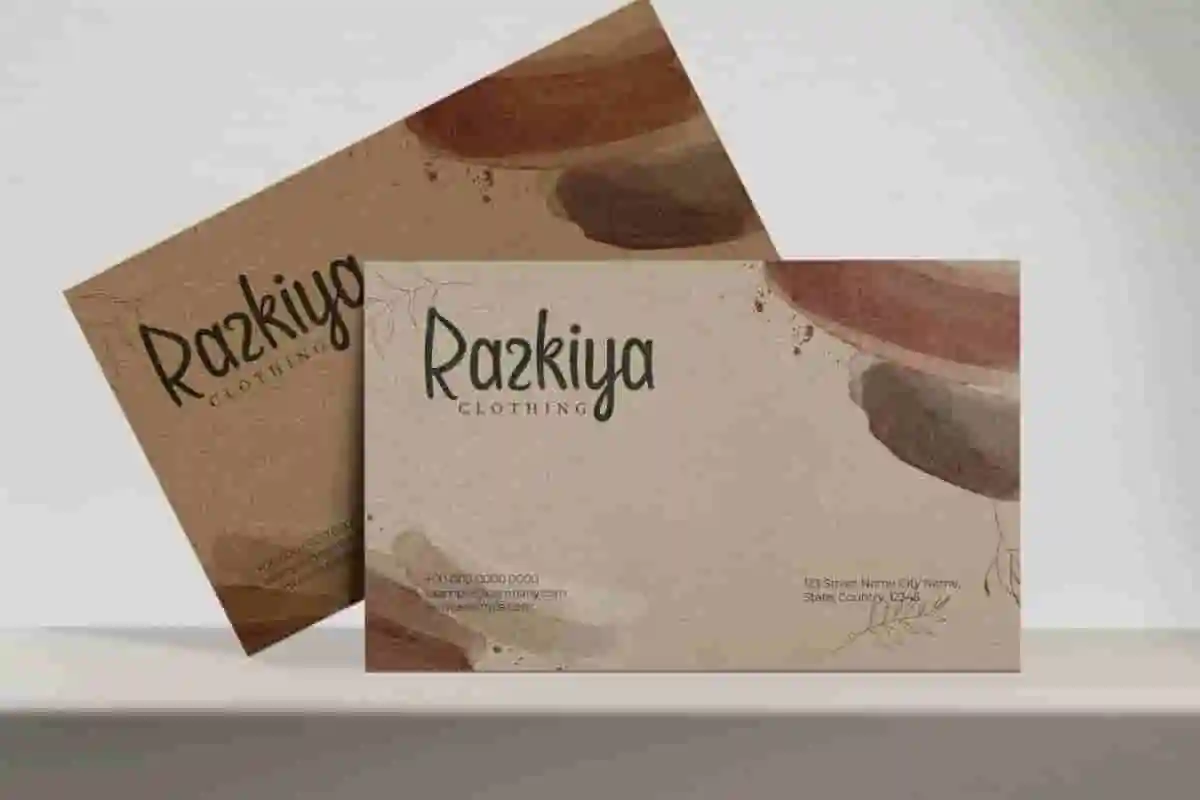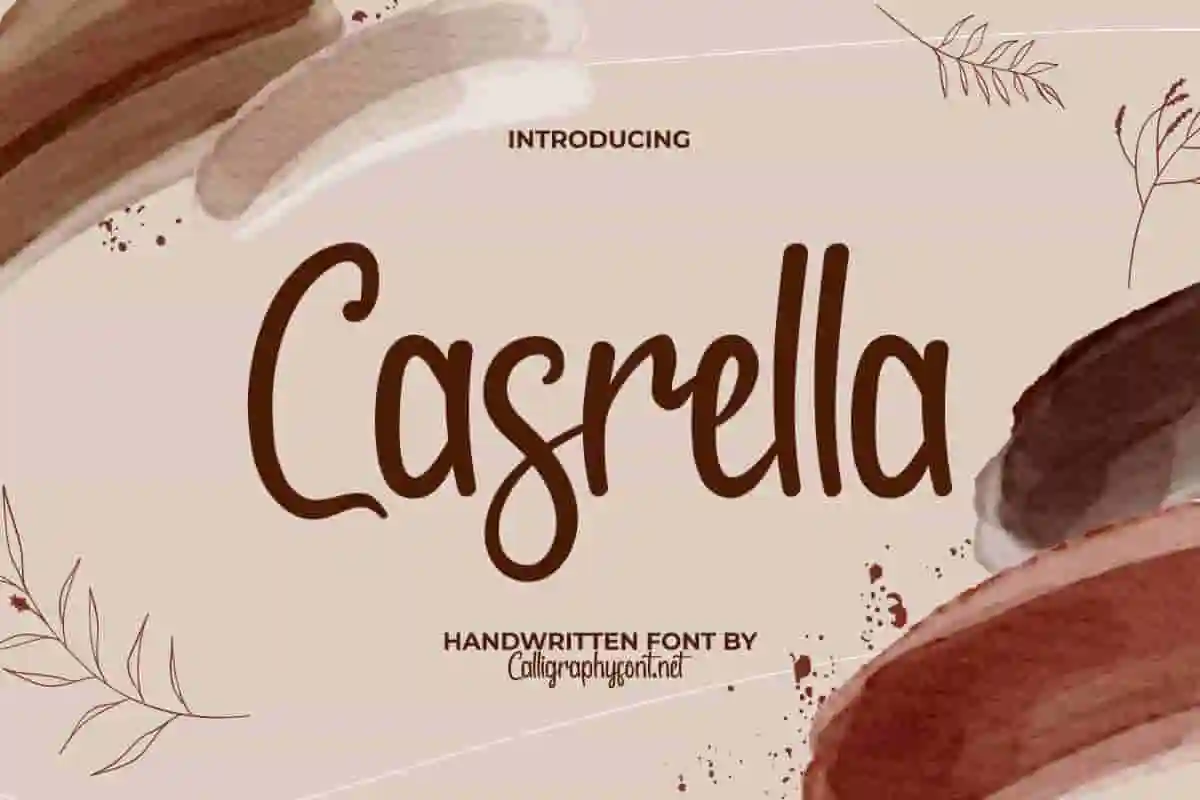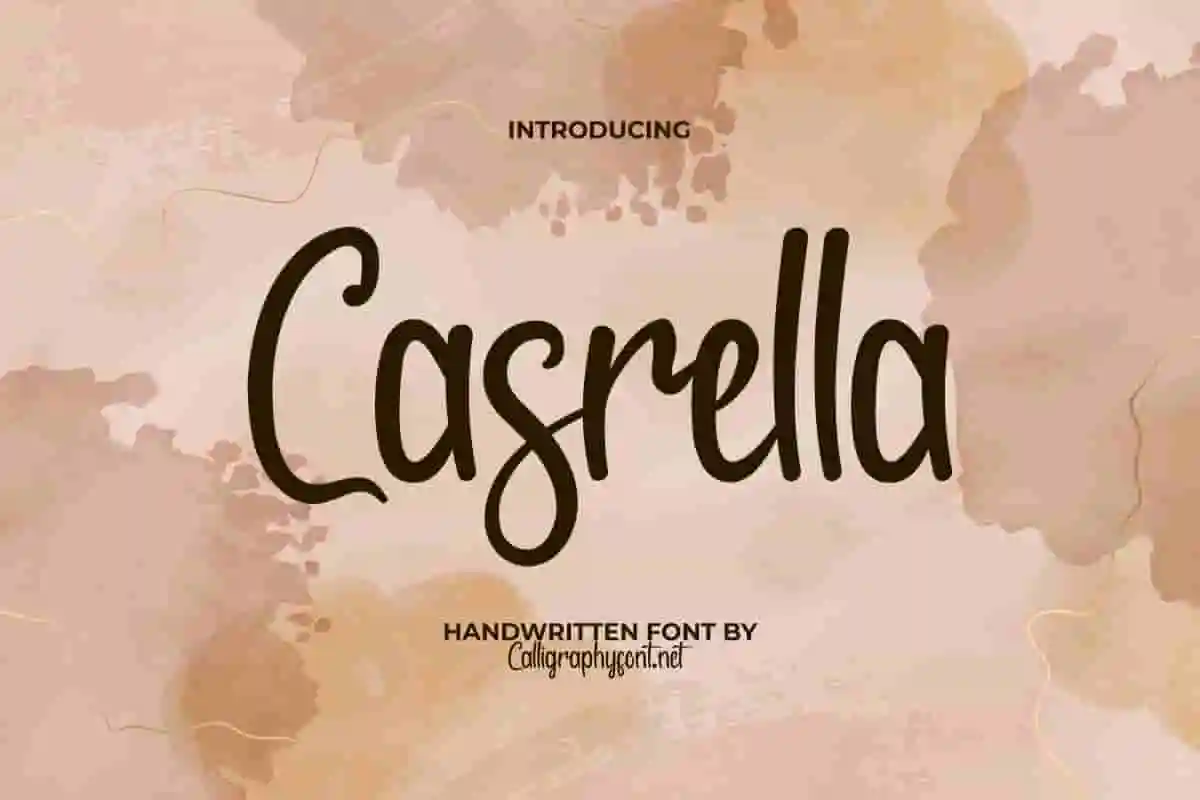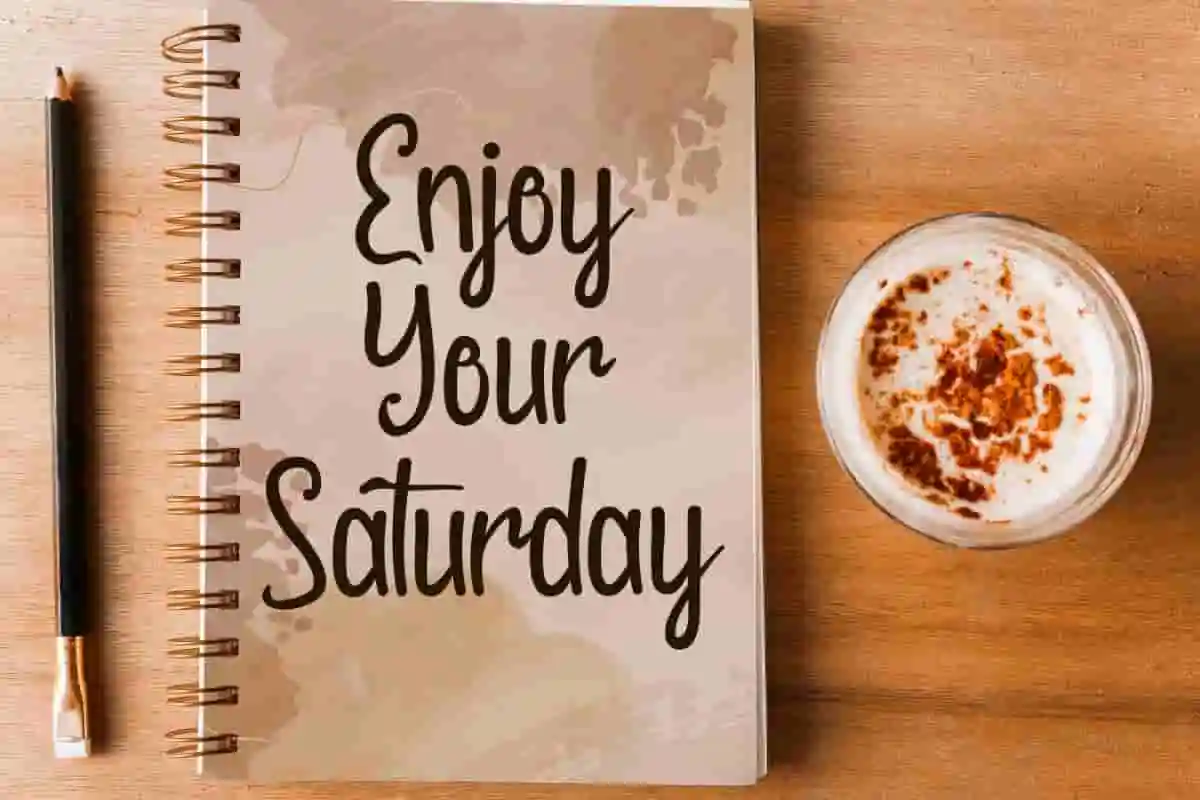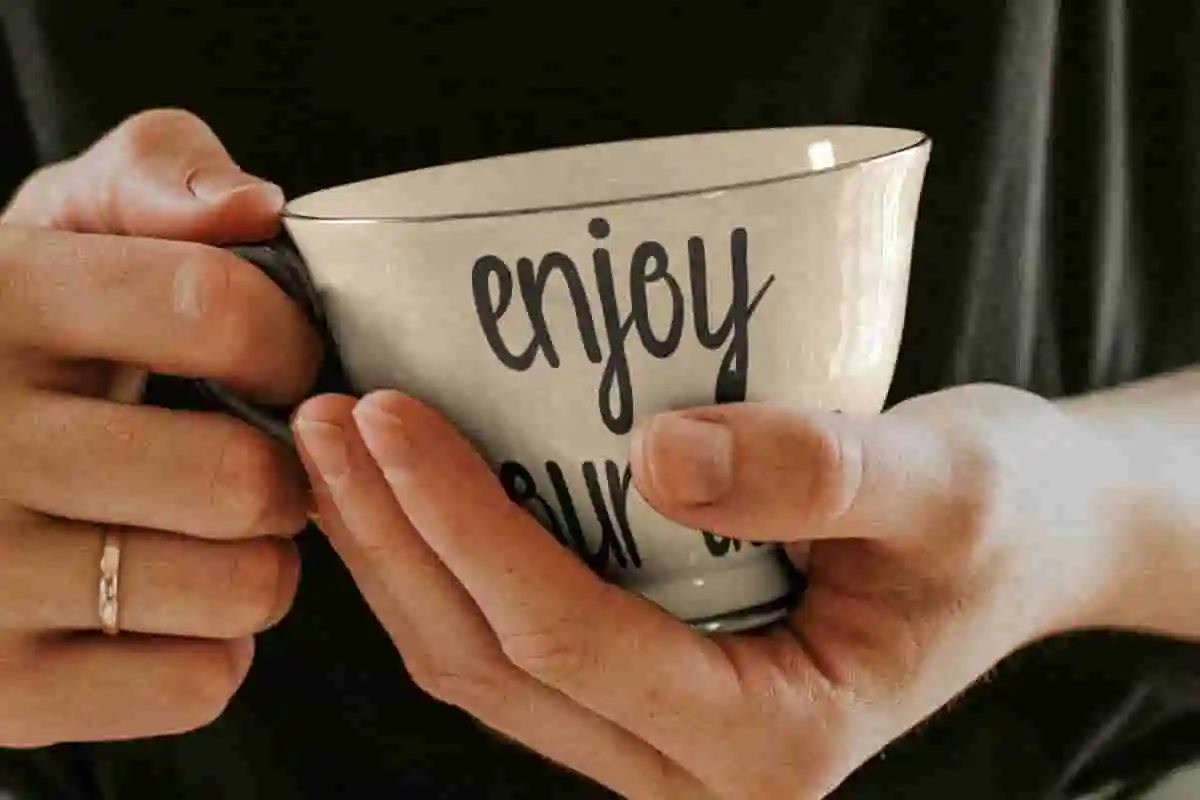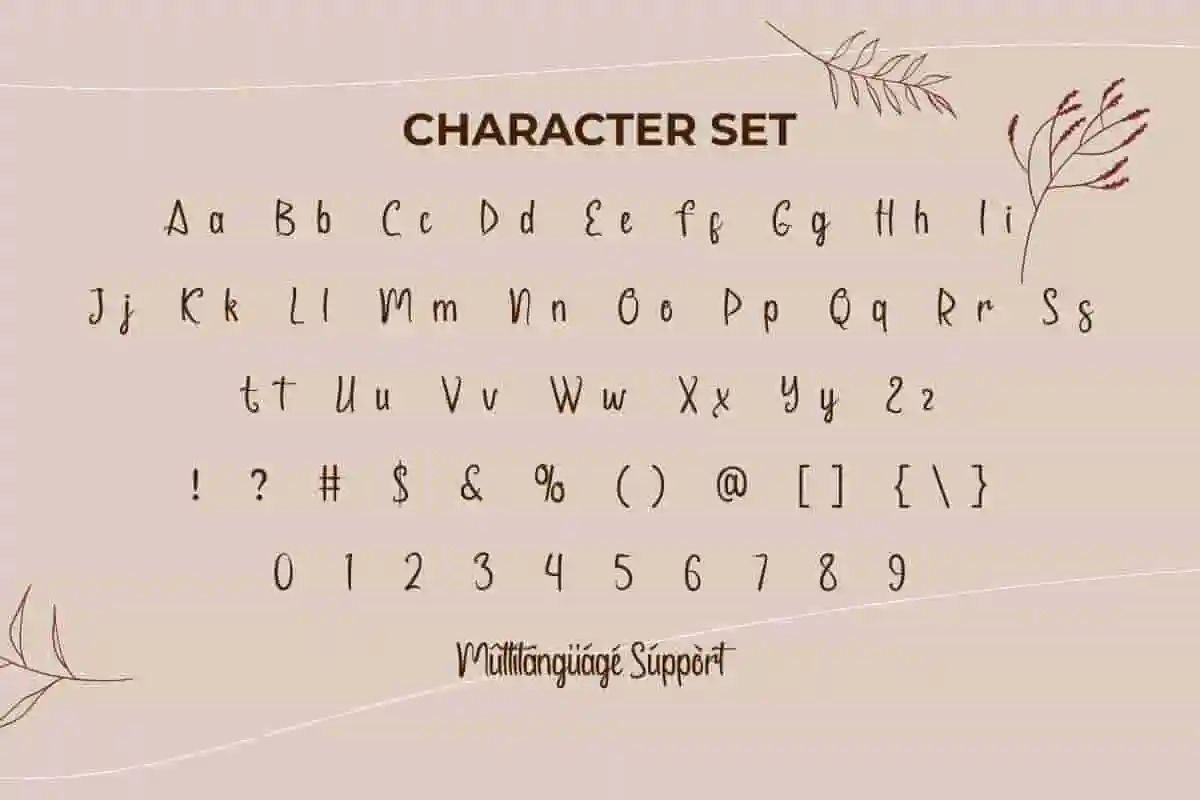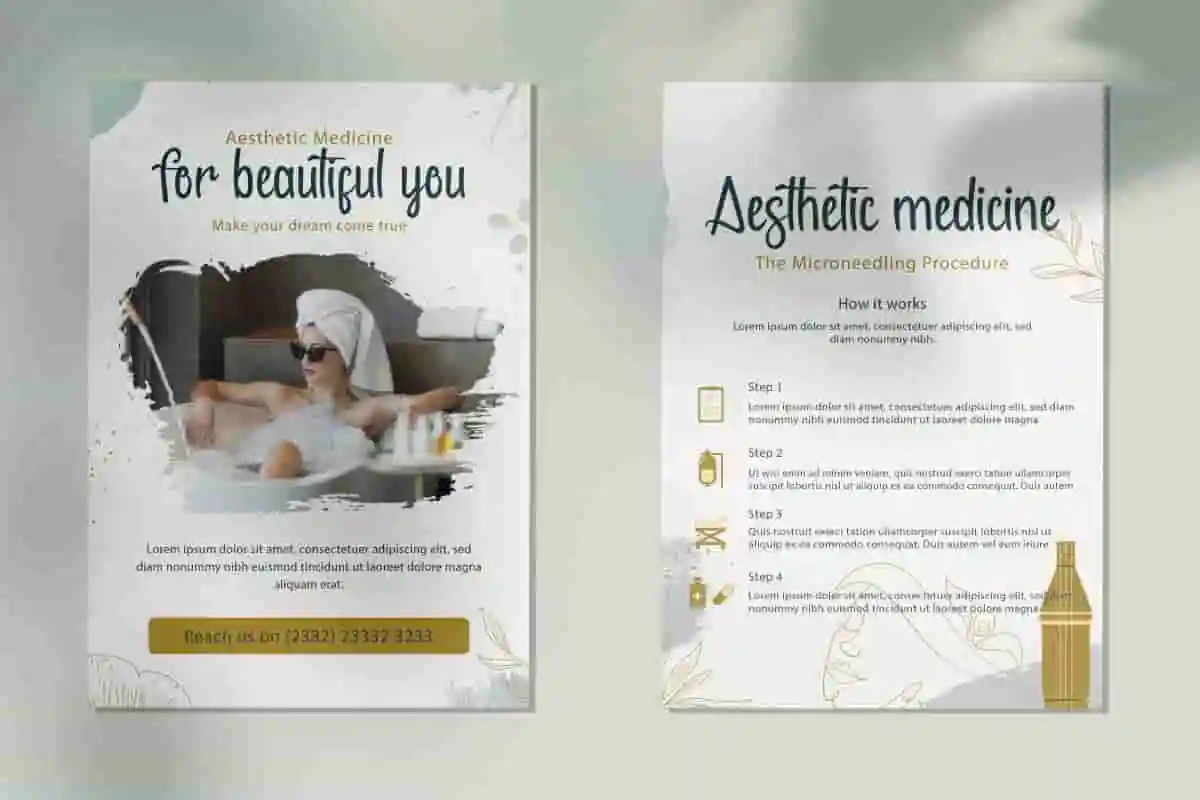
Casrella Adorable Font
Casrella Font is a adorable handwritten font that will provide you a variety of beautiful letters for your designs!
Casrella Font is a lovely modern handwritten font. The wave lines in this font flow naturally to produce adorable characters. It will be good to complement any project design, such as stationery, website page, poster, invitation, label, custom design, marketing material, menu, cover, flyer, brand image, brochure, signage, screen print, title, and many more!
Casrella Font can make every design look amazing, so it can be used by various industries, such as spa and aesthetics, fashion, event or wedding organizer, florist, advertising, beauty product, content creator, graphic design, handicraft, homeware, interior design, printing, publishing, etc.
Casrella Font comes with a full set of Uppercase and Lowercase Basic Characters, Number, a large range of Punctuation, and Symbol. It also comes with multilingual character support. Ready to use both on Windows machine or Mac with simple installations. It’s tested to work well in the Adobe Apps (Illustrator, Adobe InDesign, Adobe Photoshop) CorelDraw, and others. PUA Encode Characters means you can access all the characters easily – Fully accessible without additional design software.